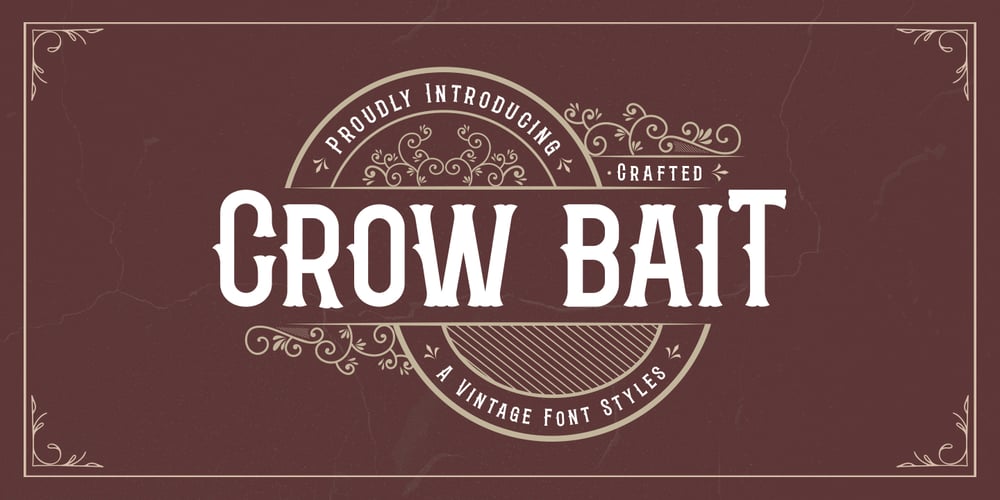
Crow Bait Font Family was designed by Hilmius Akbar and published by Typefactory. Crow Bait contains 1 styles and family package options. Crow Bait is an incredibly elegant, bold and vintage display font.This font reads as strong, confident, and dynamic and can add tons of nostalgic character to your designs.